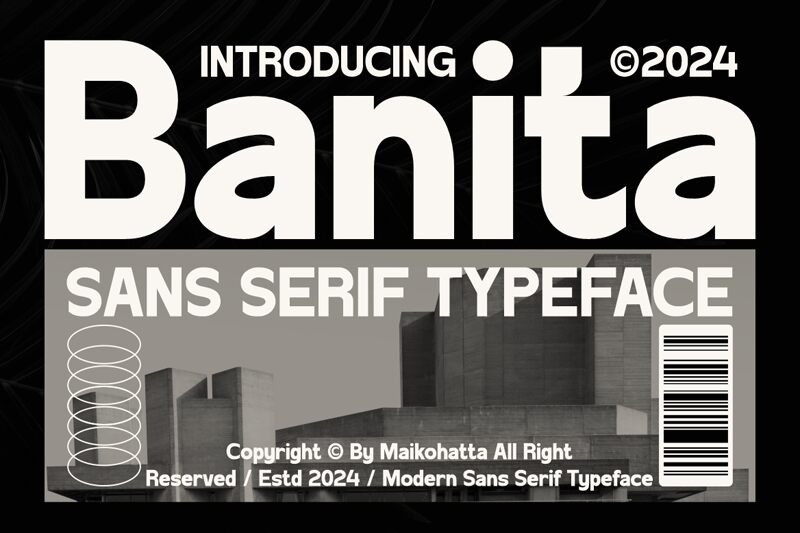
Banita font family designed by Gilang Ternadho features 2 font styles for maximum diversity. This sans serif modern font family showcases a blend between clean geometric structures and contemporary minimalistic themes. A professional streamlined look is created with clear cut lines, balanced spaces, and neutral uniform performance. Rounded corners are used to keep the constructed appearance friendly and fresh, opposed to rough and solid. The designer incorporated visuals, usually found in other font sub-categories, that are usually chosen for informal cheerful projects.
The versatility and gentle approach of Banita are seen in virtually any project, print or digital, short or long prose, and in various business and casual unimaginative fields. Use it for headlines, posters, covers, flyers, advertising, resumes, packaging, or original typography designs. It will also work perfectly for body text in interface and concept designs.